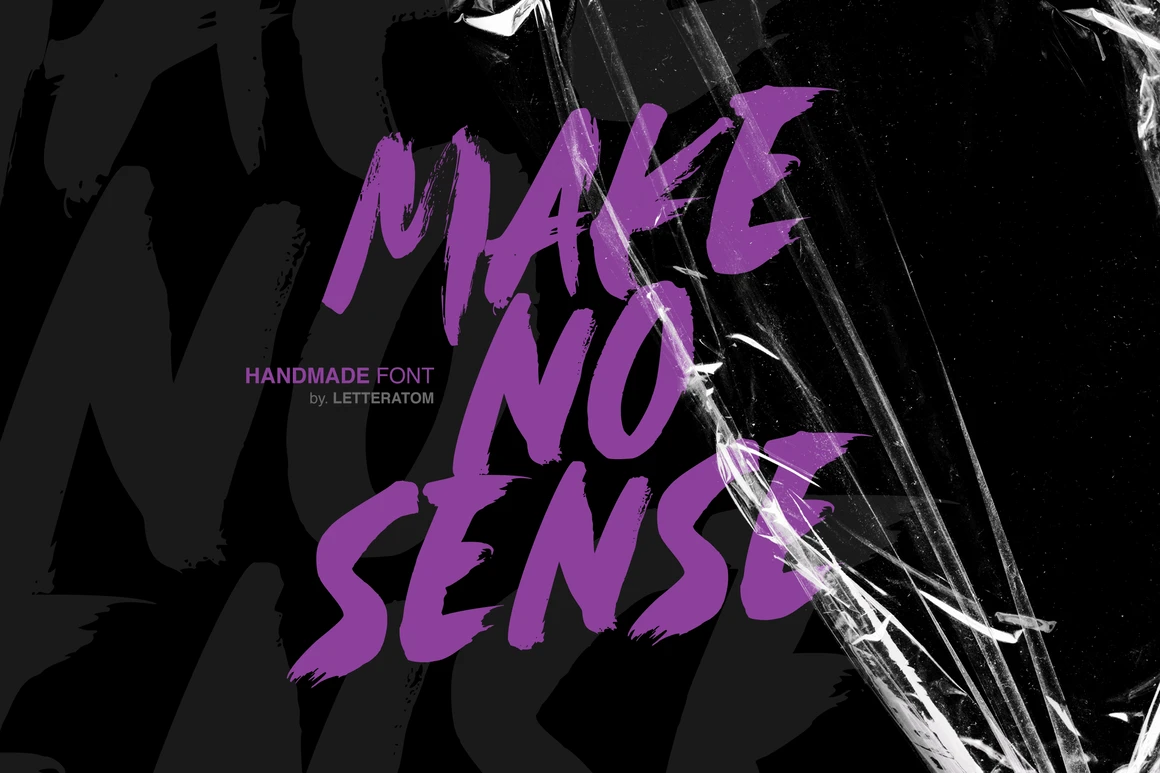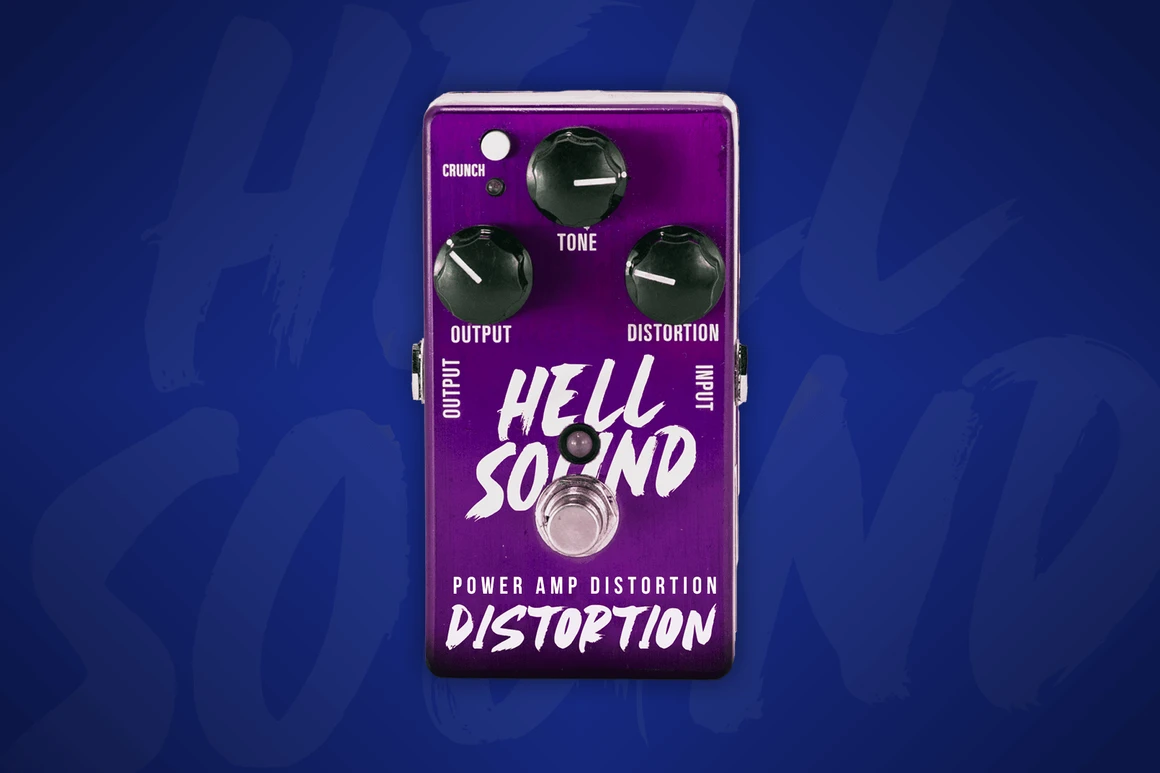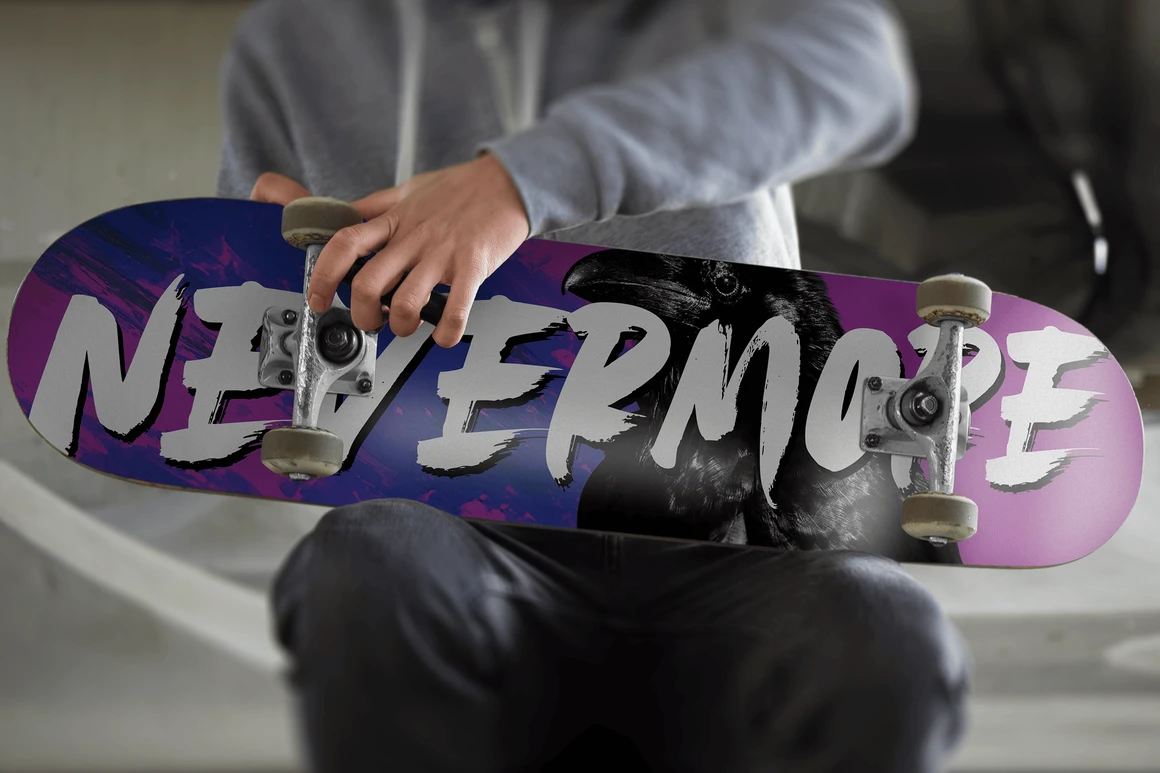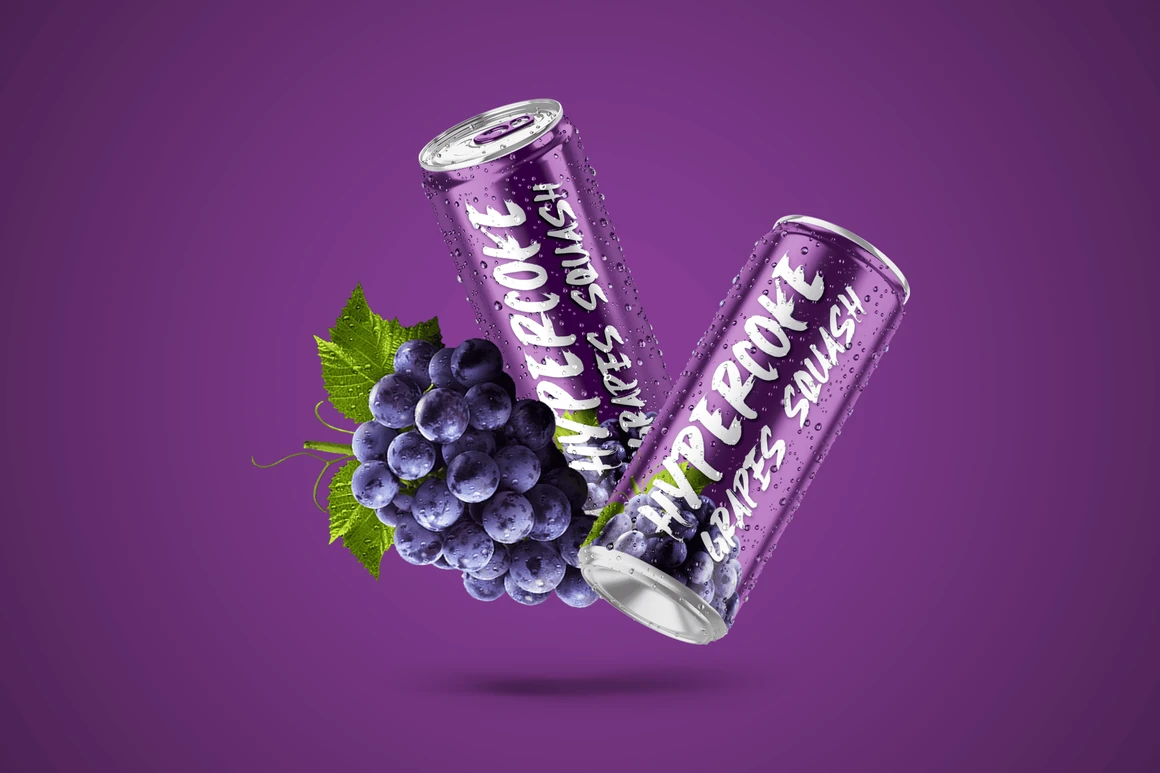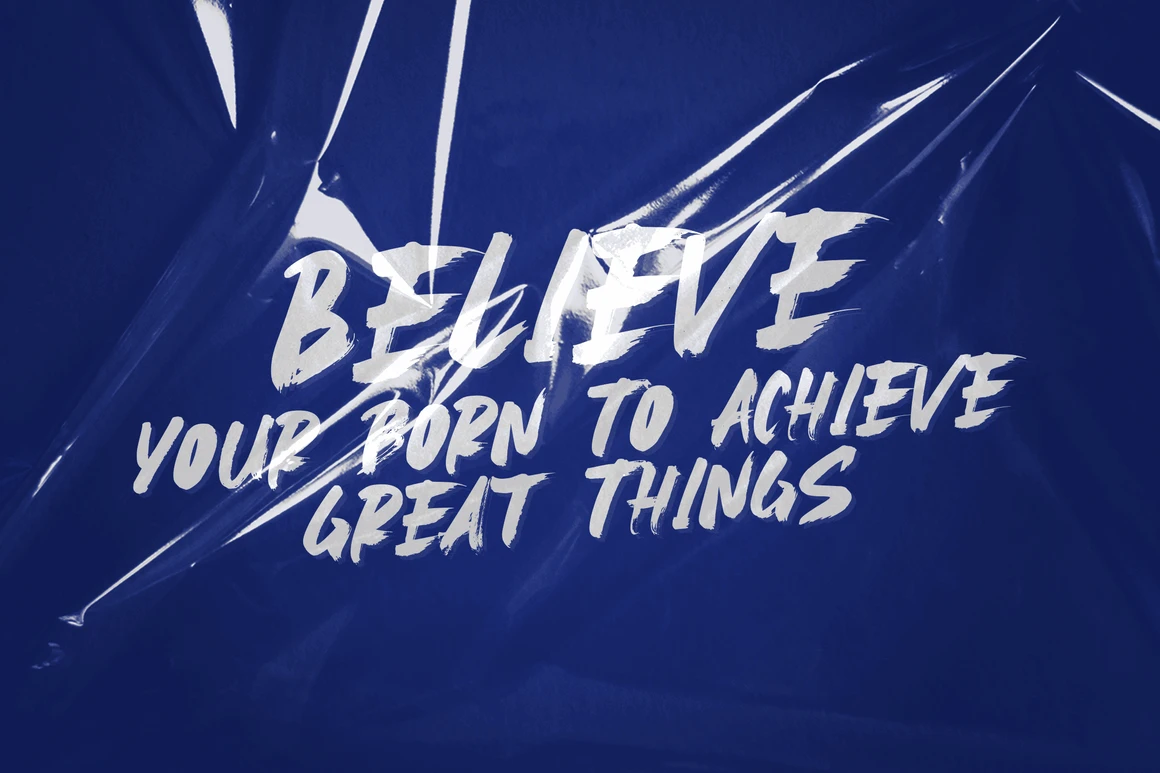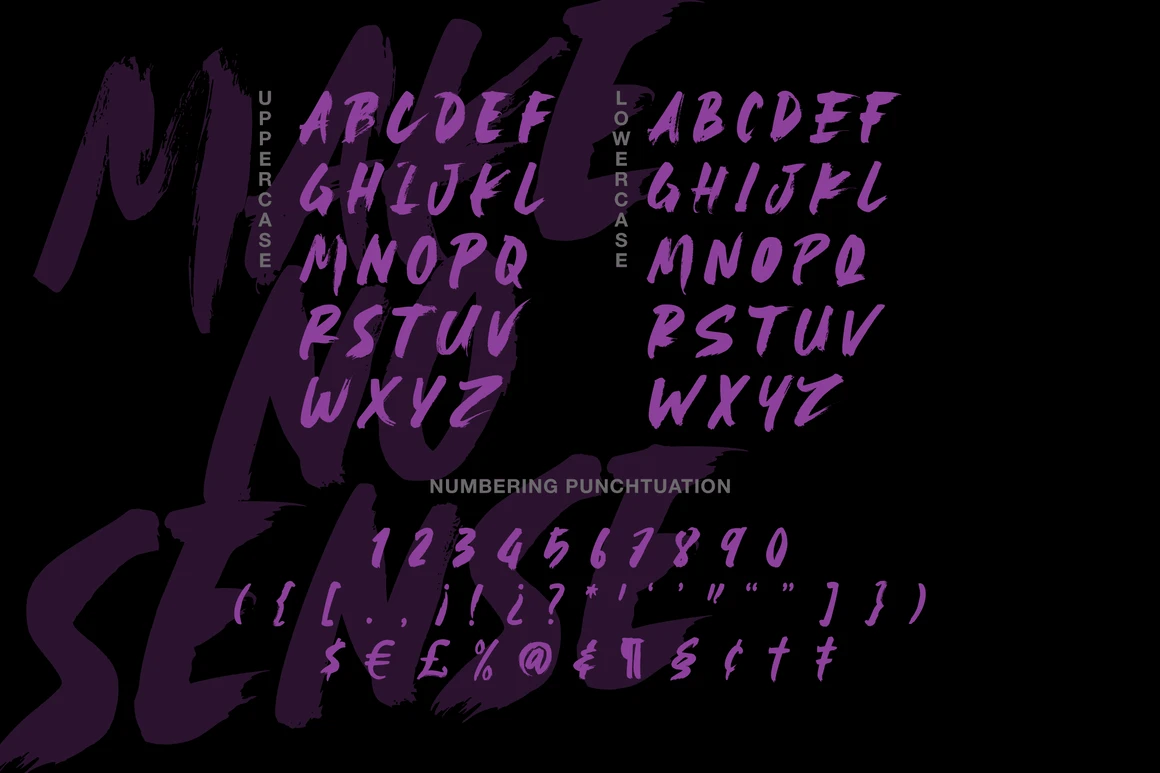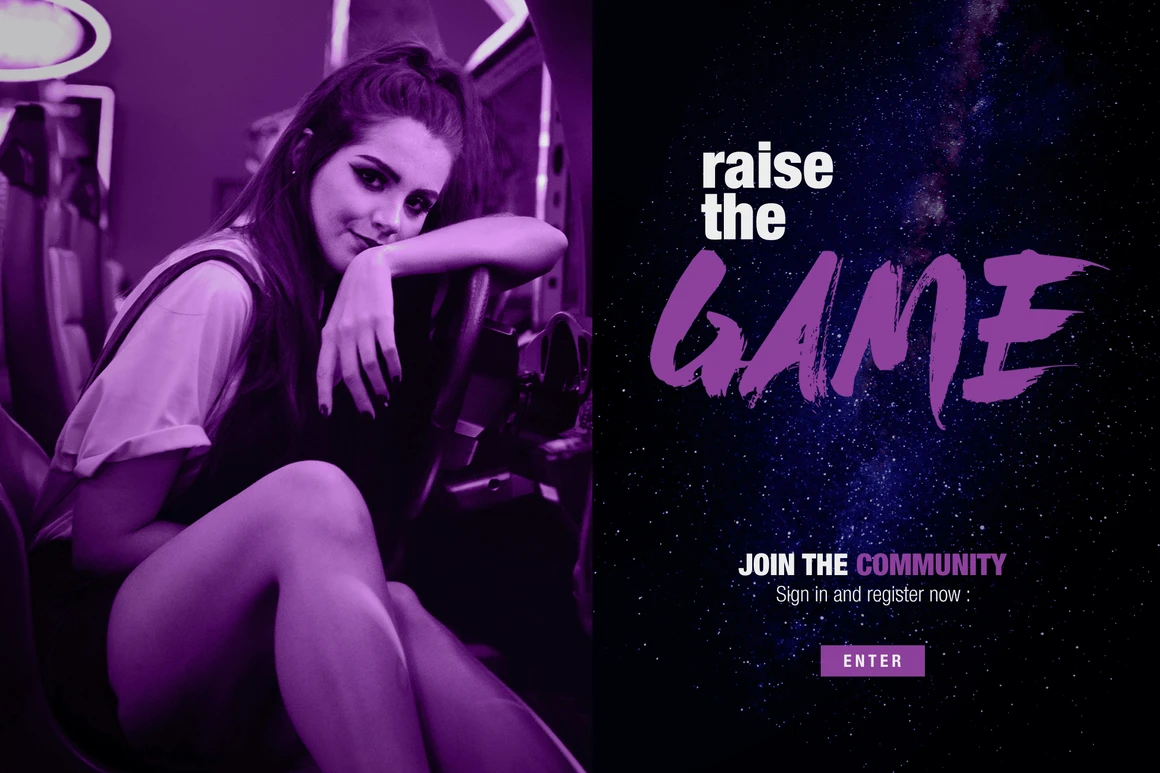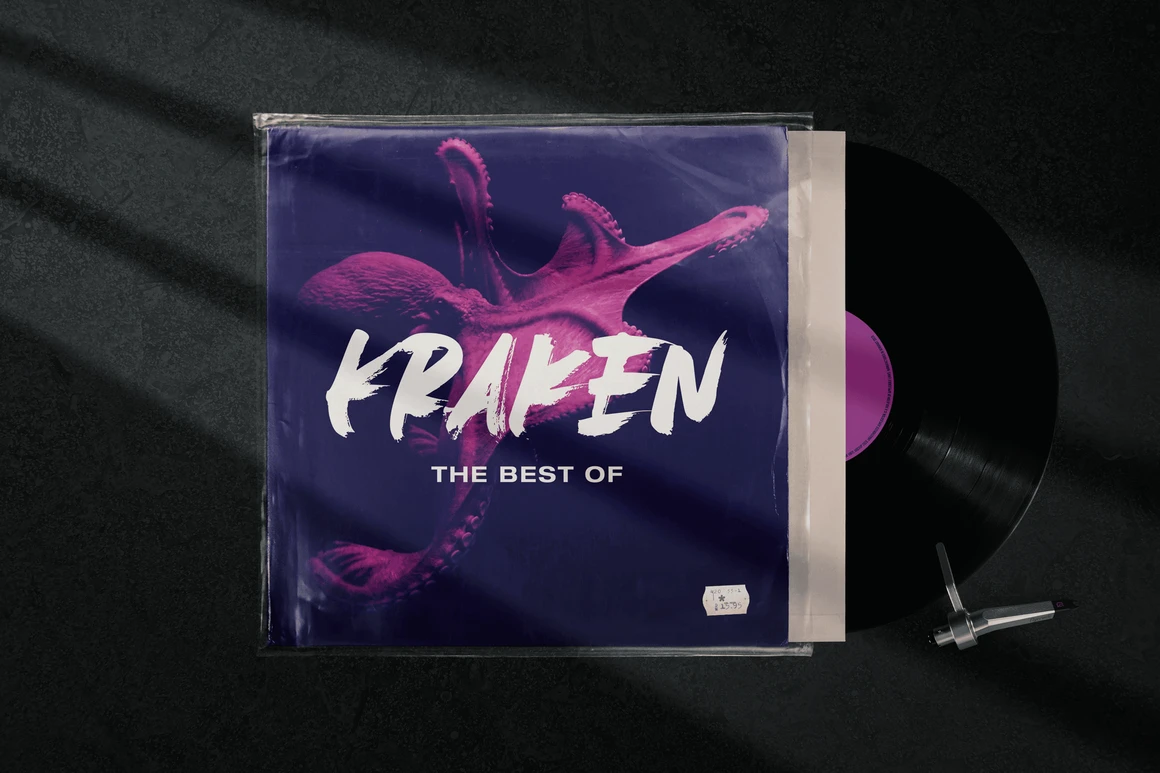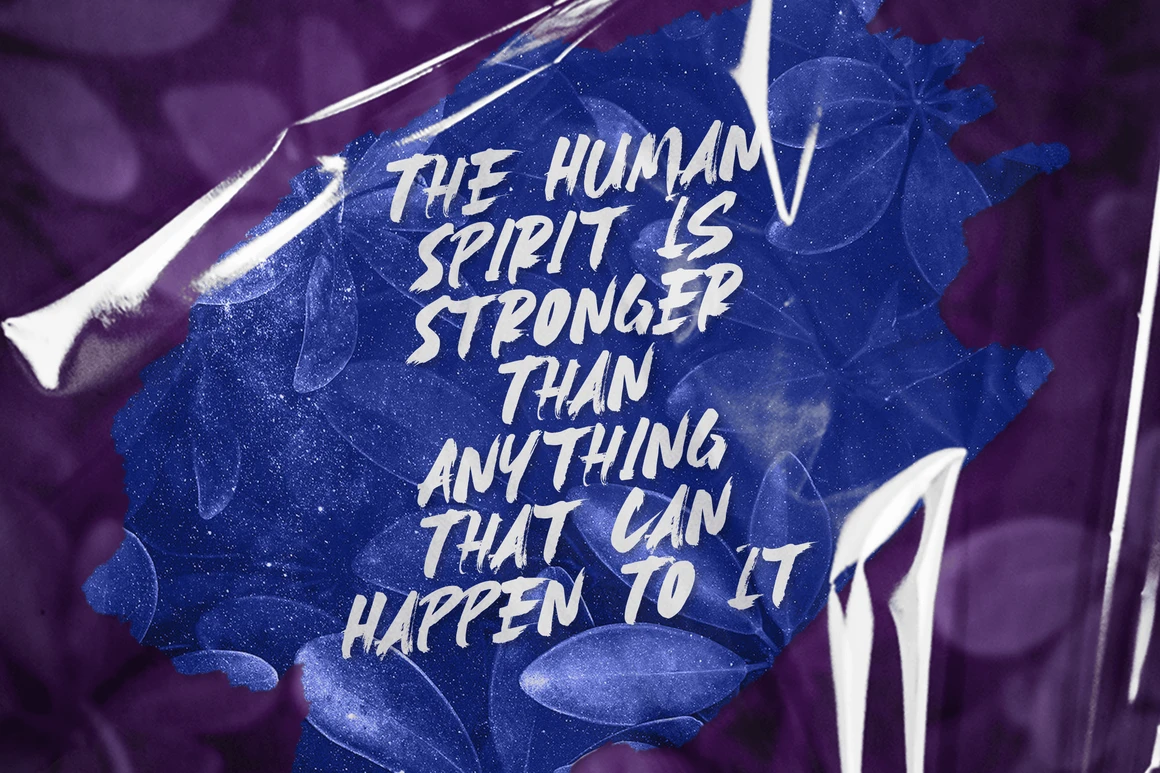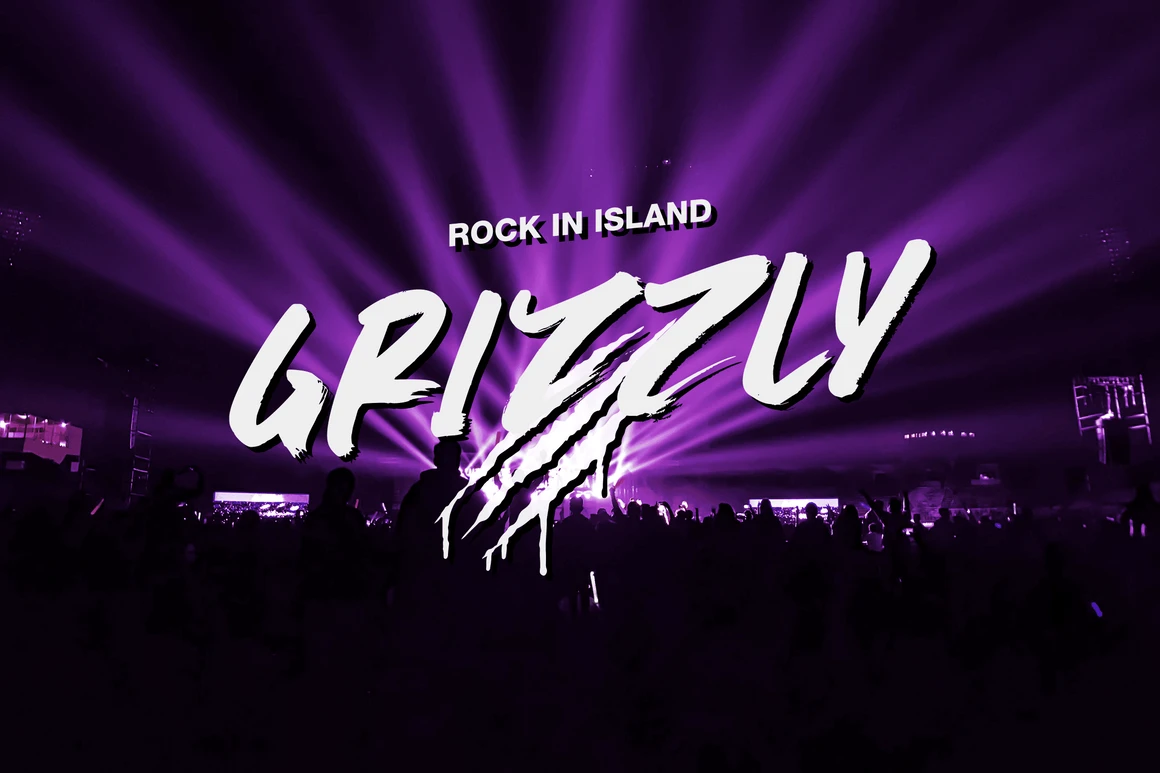
Make No Sense is a natural, bold and powerful handwritten font. This will turn any design idea into a standout!
Make No Sense make unreasonable designs outstanding!
Play with Make No Sense and let your typography do the talking.